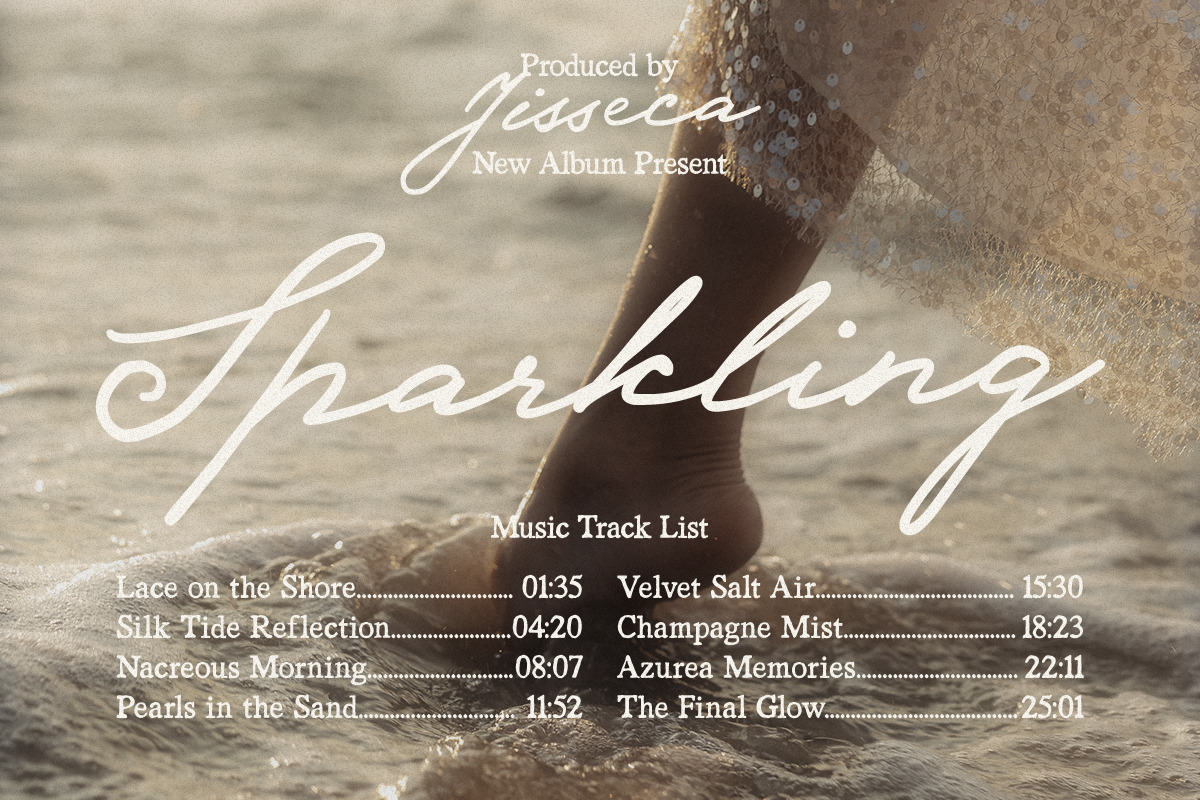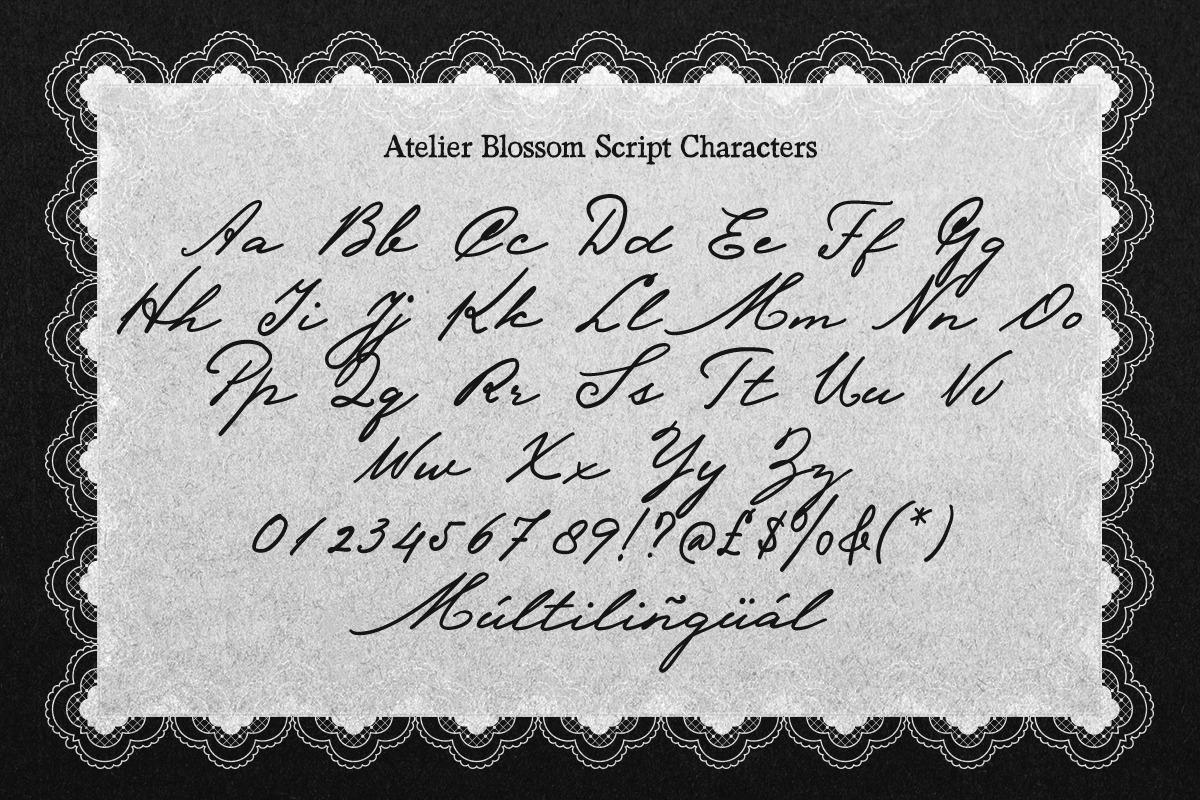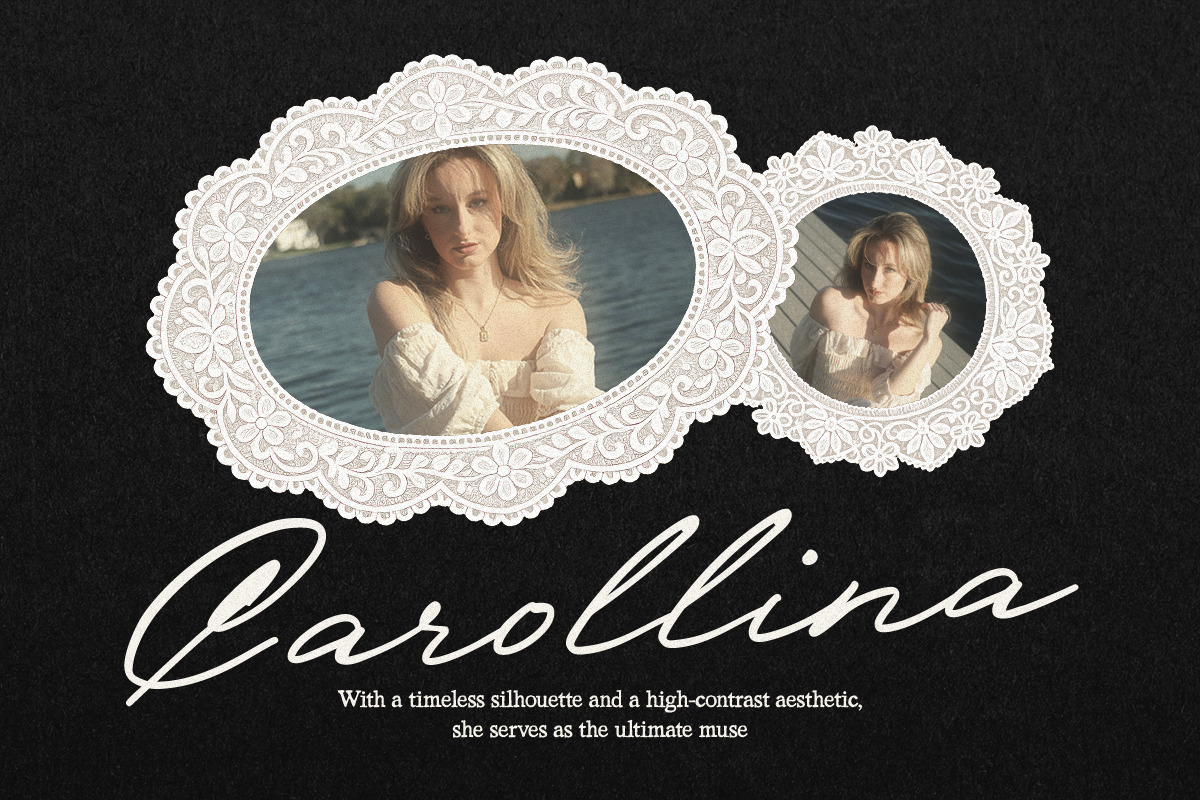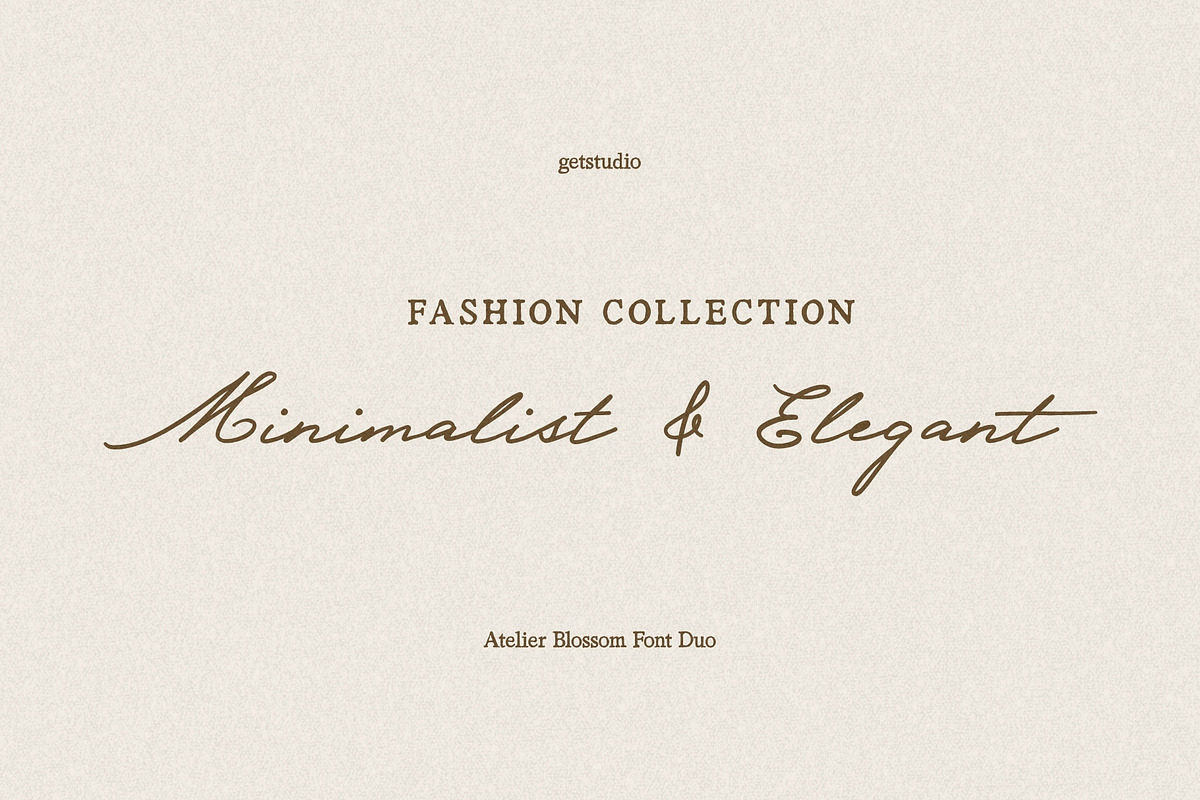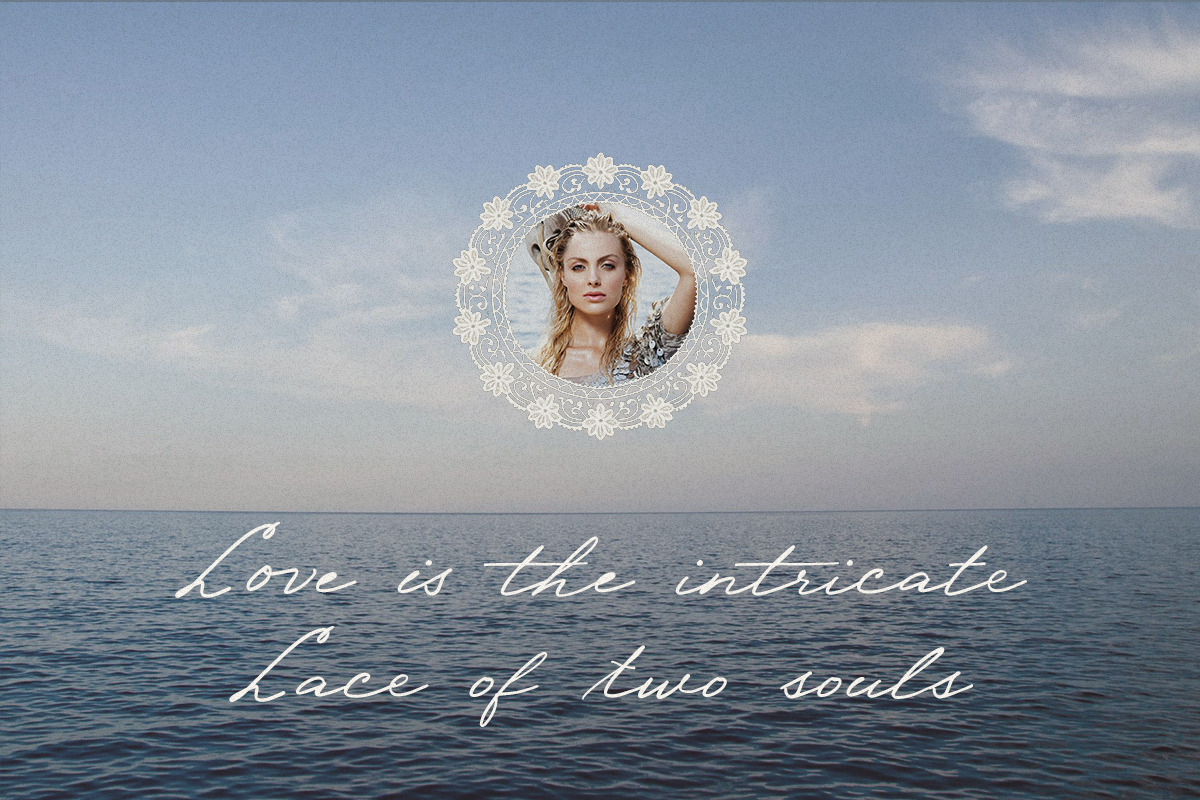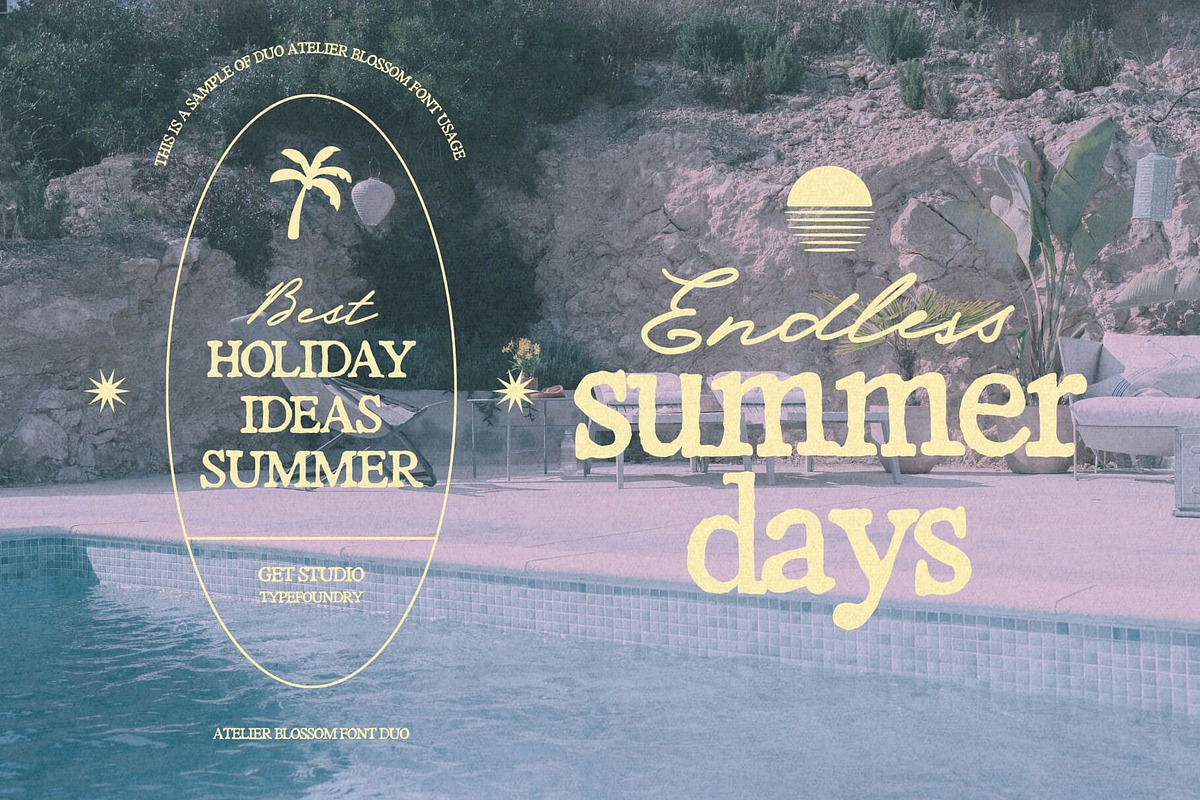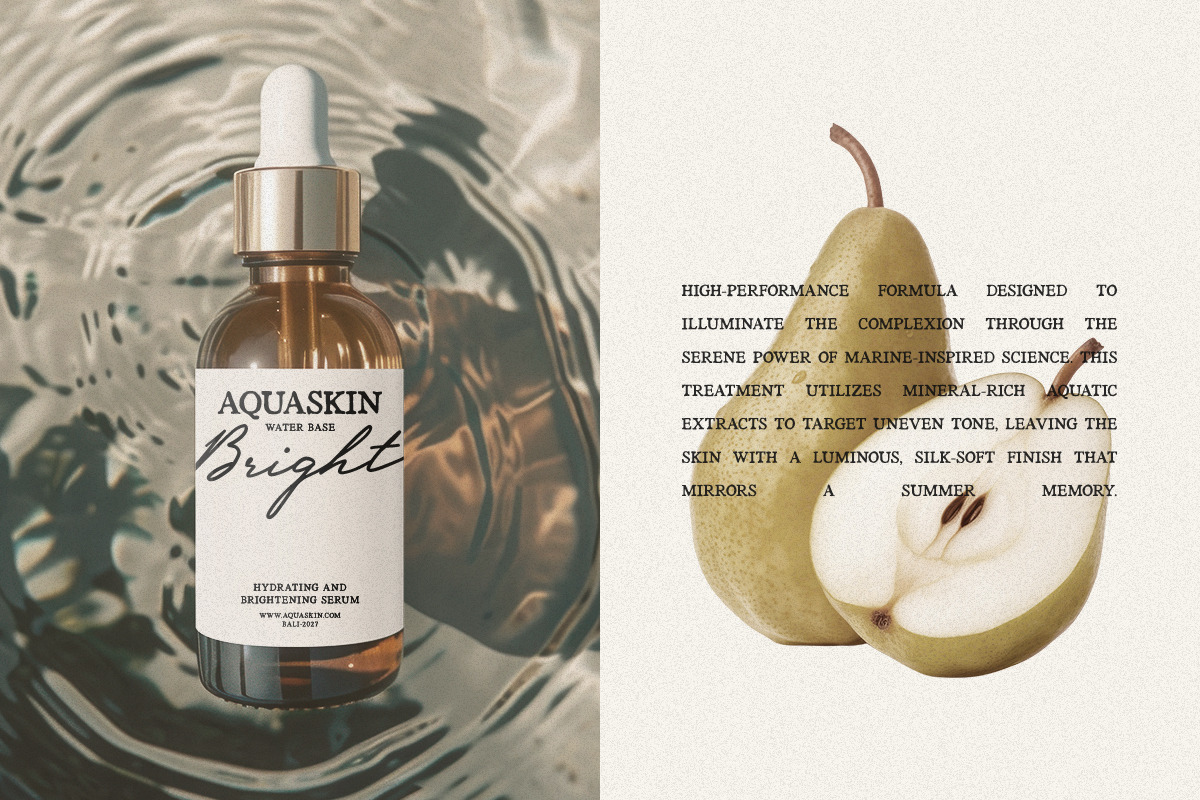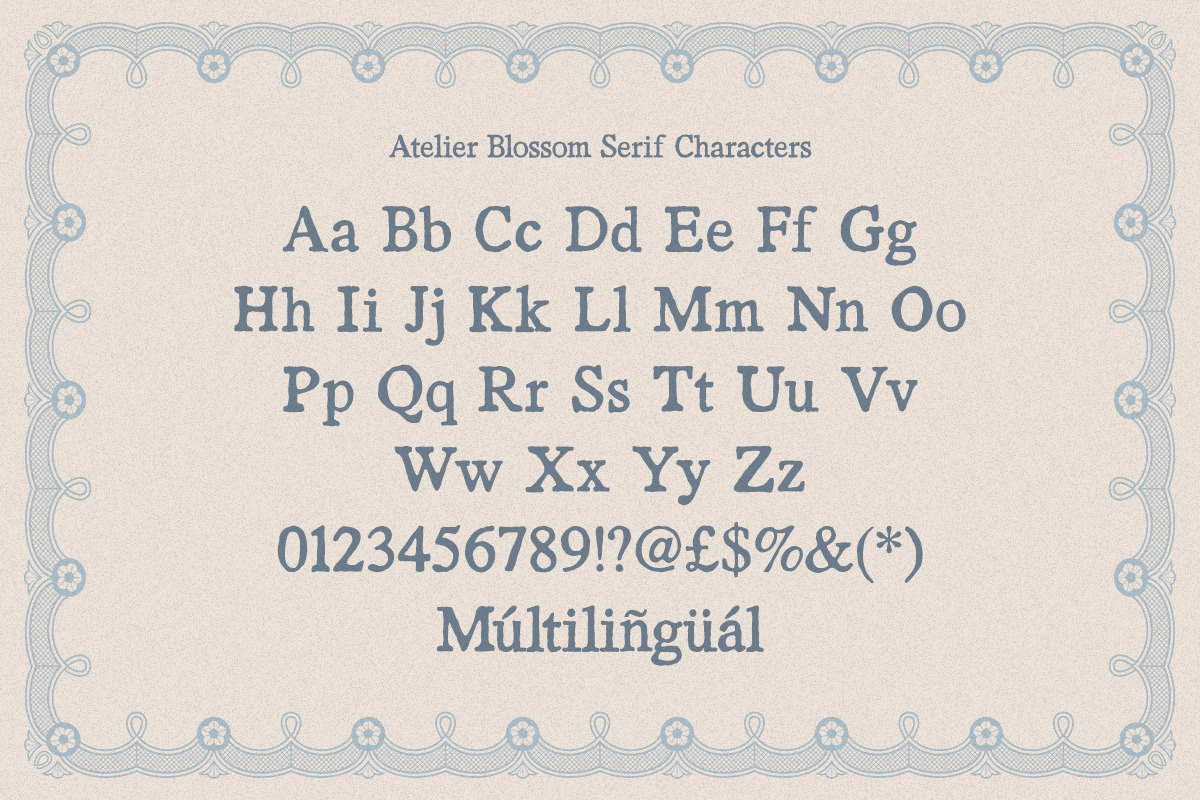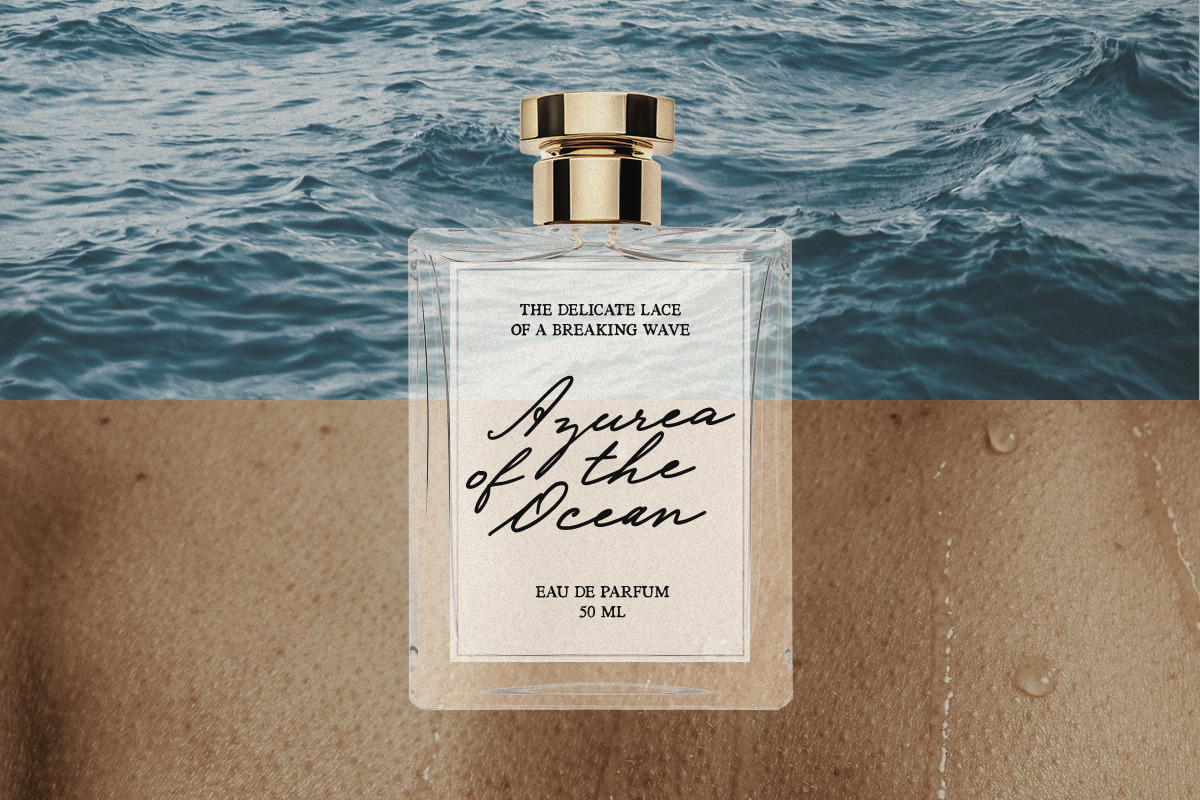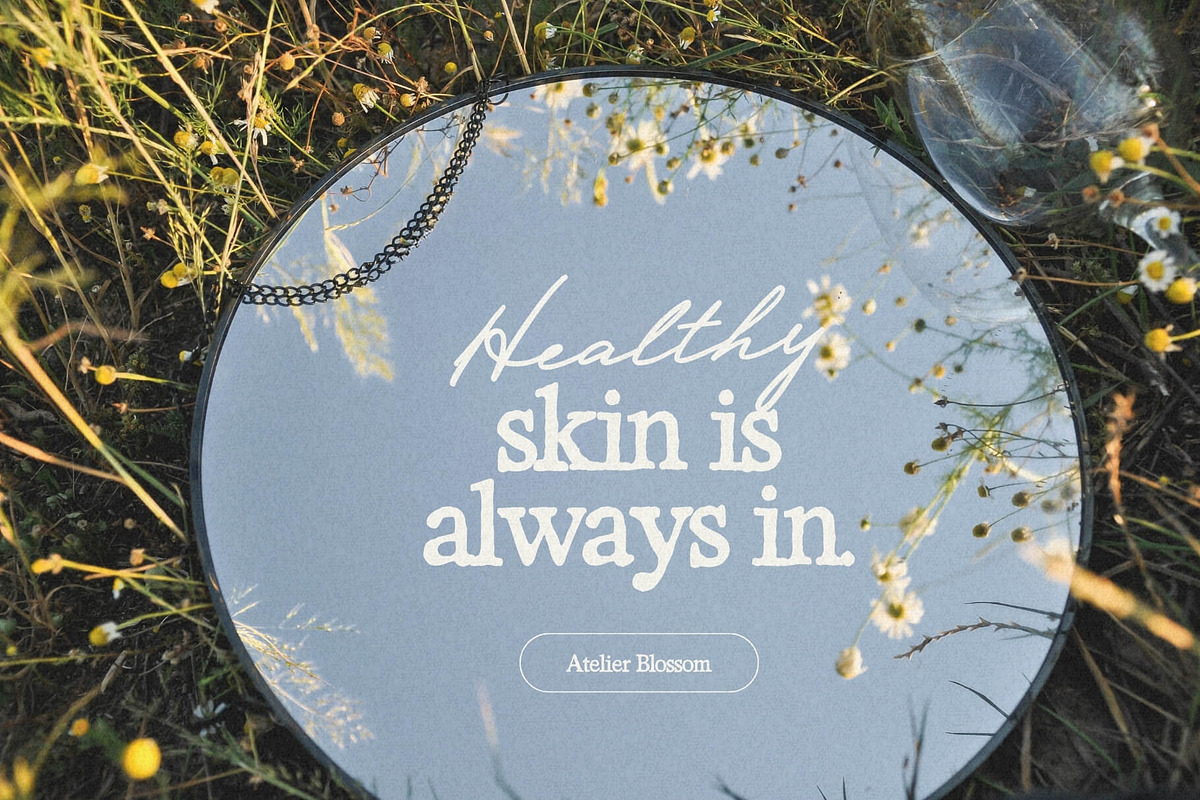
Atelier Blossom | Romantic Font Duo
Atelier Blossom is a refined font duo that pairs a romantic flowing script with a timeless vintage serif—crafted to bring elegance, warmth, and effortless charm into every design.
Perfect for branding, wedding stationery, packaging, editorials, and social media, Atelier Blossom offers a versatile typographic voice that feels both intimate and timeless. Every detail, from smooth curves to carefully designed alternates, is made to elevate your work with a graceful, handcrafted touch.